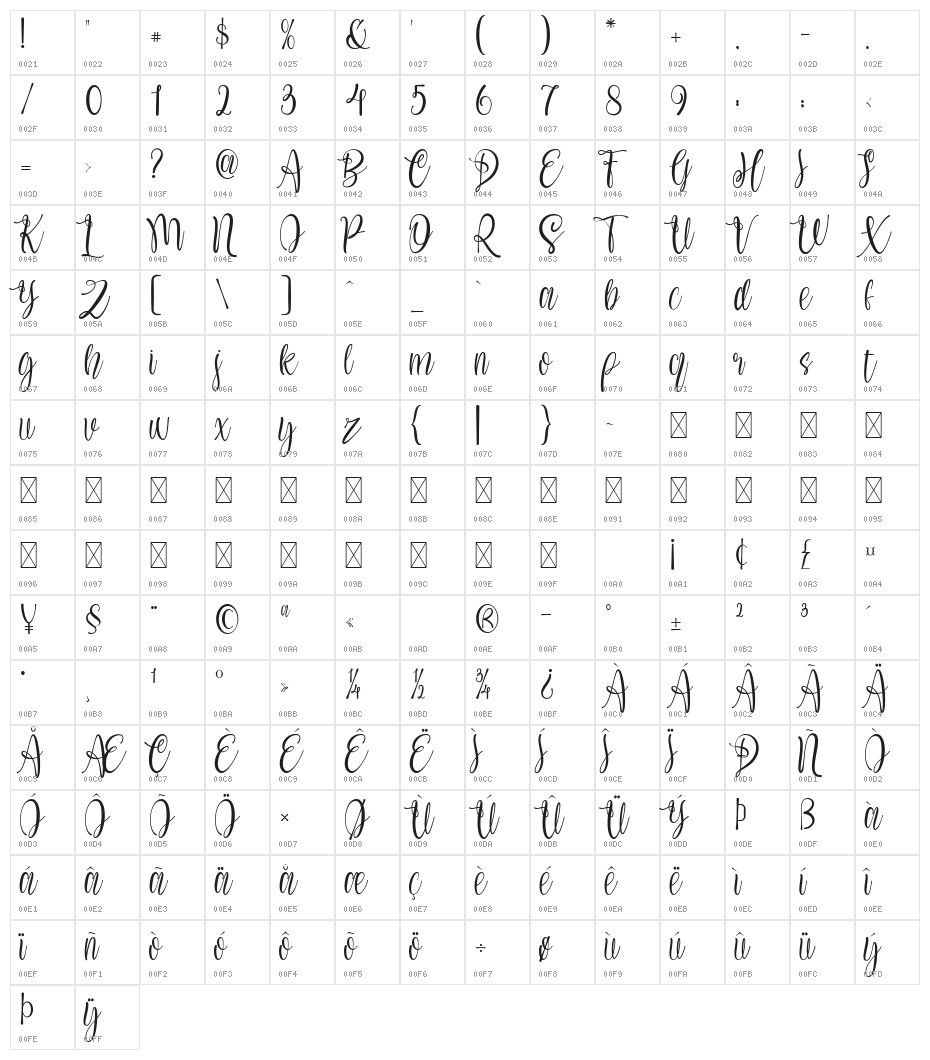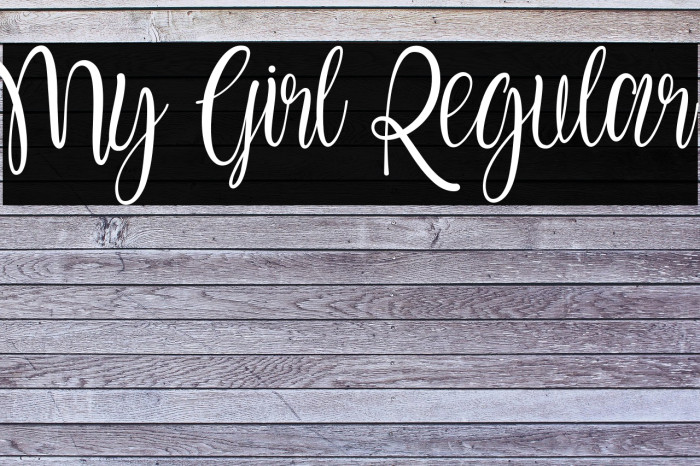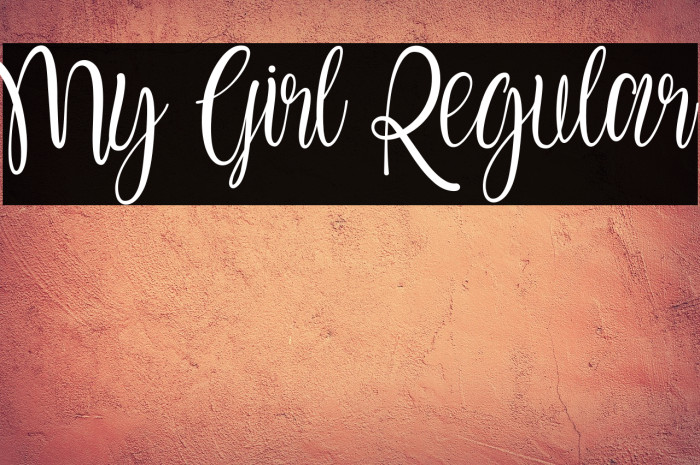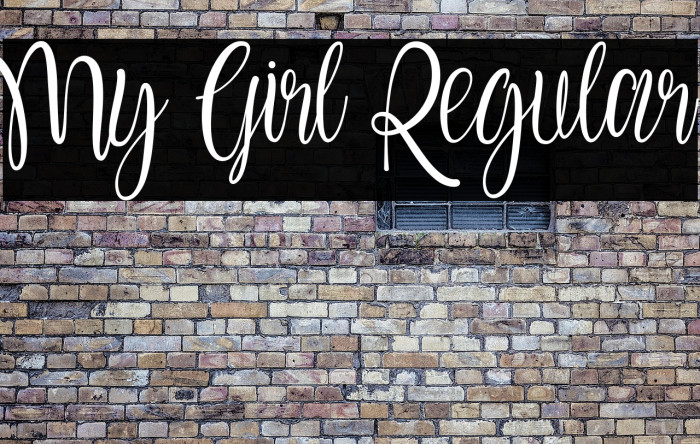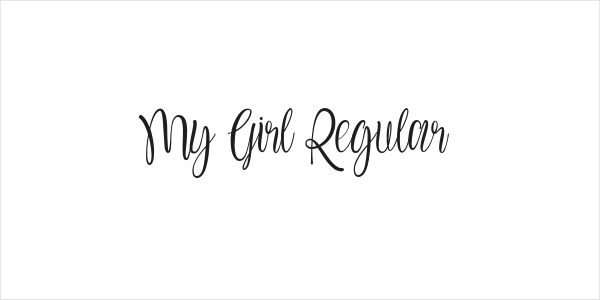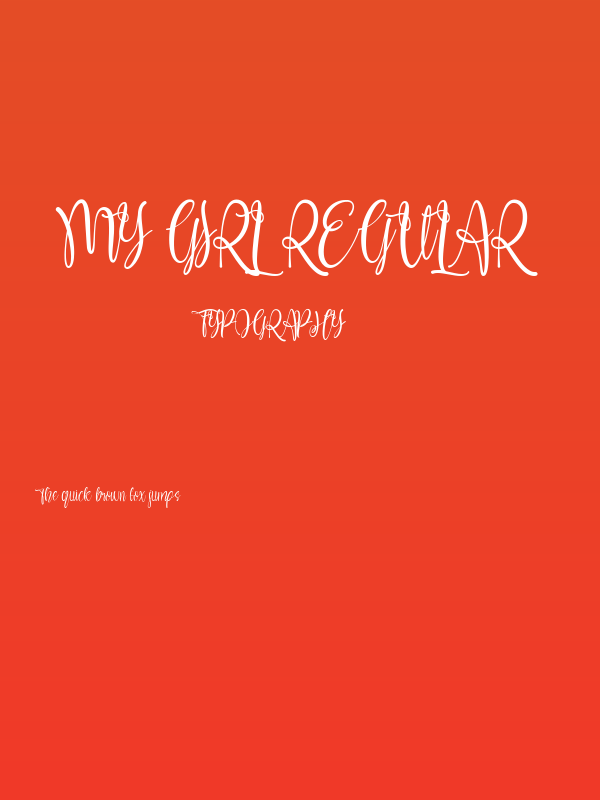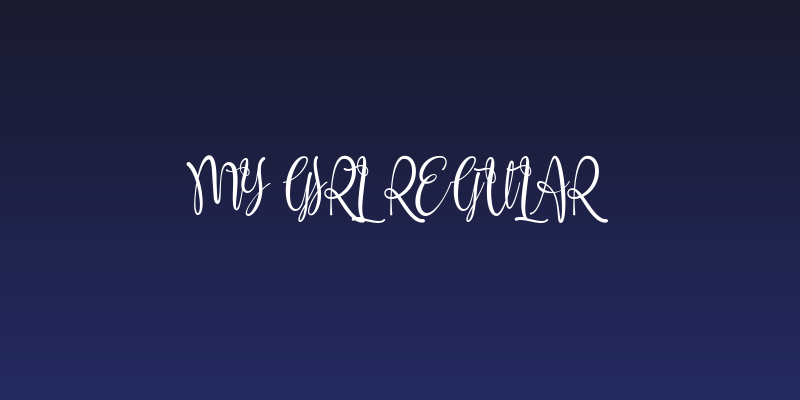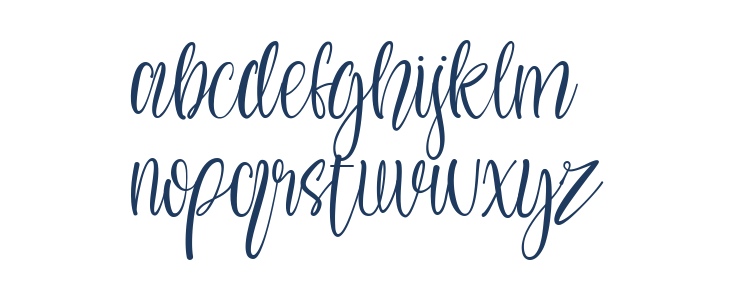
My Girl Regular Font
My Girl Regular Description
This font features an elegant and flowing script style, characterized by its smooth, cursive strokes and a sense of fluidity. The uppercase letters are ornate with loops and swirls, while the lowercase letters maintain a consistent, graceful flow. The numerals and special characters complement the alphabet with their curvy and artistic design. This font exudes a sense of sophistication and charm, making it ideal for projects that require a touch of elegance.
| Overall Style | Elegant, Decorative |
| Proposed Projects | Ideal for wedding invitations, greeting cards, branding, and elegant logo designs. |